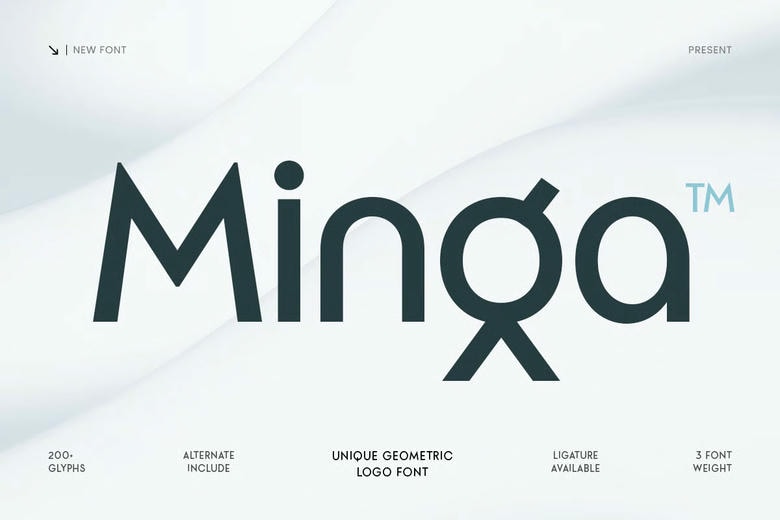
Minga Font
Minga Font is a special family of geometric logo fonts with the purpose of creating clean, consistent, and instantly recognizable brand identities. With structured geometry and distinctive character details, this family has a modern sound that is elegant, minimalist and decidedly contemporary.
Designed for brand systems that need to be flexible, Minga integrates very nicely into logos, wordmarks, website headers, user interface design, packaging, social media graphics and contemporary editorial layouts. As a cohesive family, it helps you maintain hierarchy and consistency across different applications while maintaining the coherence of your visual identity in both the digital and print worlds.
Whether it’s establishing the identity of a start-up, or polishing a company’s identity or creating an ecosystem in style around a product, Minga offers a geometric foundation that’s refined, modern and of a piece.
The ideas Minga is inspired by have been modern geometric typography and clean branding systems, in which the balance, precision, and clarity form identity. Informed as a flexible family of logo and brand work, it accommodates both basic key words to a sophisticated digital interface helping brands to be innovative, professional and modernly simple at all touchpoints.
Minga Sans Serif Font